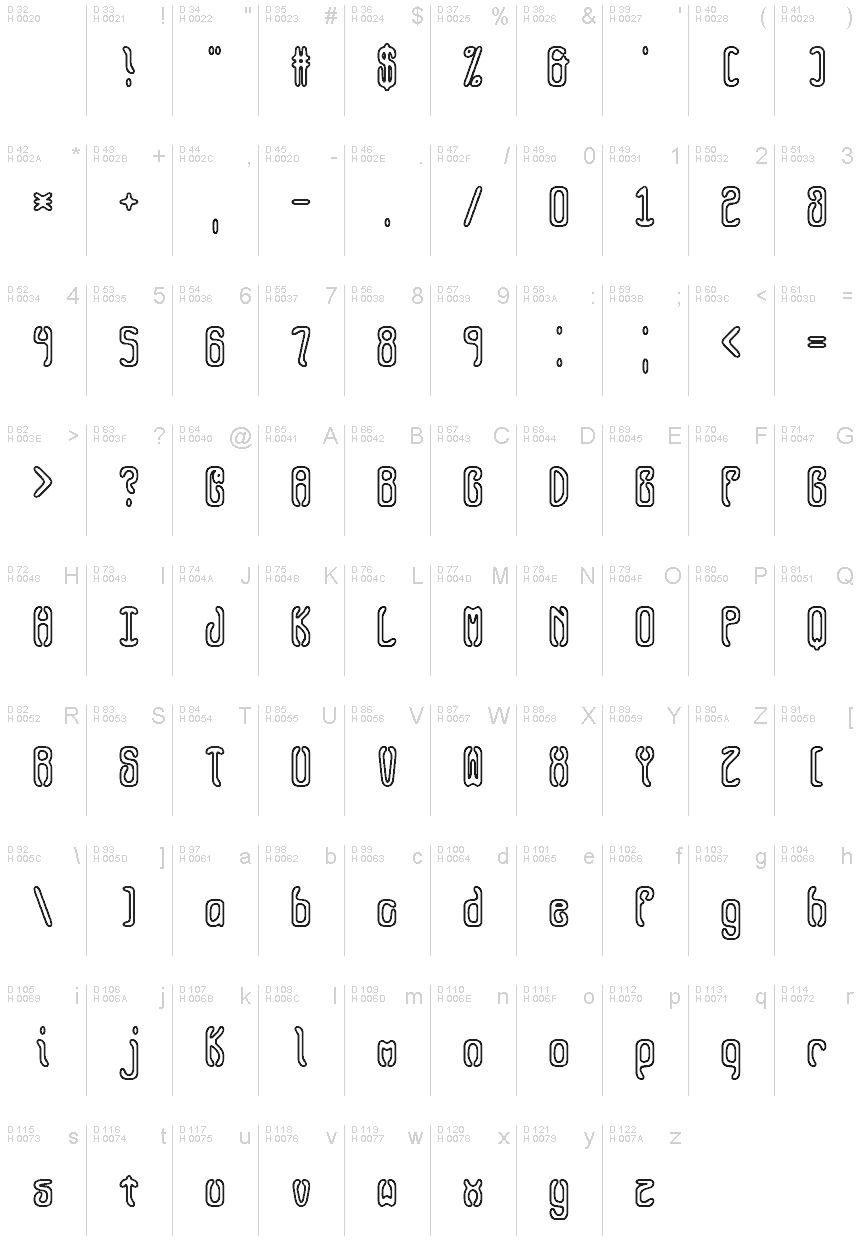
Queasy Outline BRK
Queasy Outline BRK emerges as a distinctive member of the Queasy font family, designed by ÆNIGMA FONTS. This display typeface boasts an outlined style that exudes a semi-light weight and an extra-condensed width, creating a sleek yet approachable visual appeal. Its crisp contours and open forms make it instantly recognizable, ensuring that any text stands out with clarity and style.
The aesthetic allure of Queasy Outline BRK lies in its balanced combination of modernity and whimsy. Each character is crafted with precision, allowing for excellent legibility while also injecting personality into the typography. The outlined nature provides a contemporary twist, making it perfect for creative projects seeking a font with character without overwhelming the design.
Ideal for headlines, posters, branding, or any project that demands attention without sacrificing elegance, Queasy Outline BRK adapts effortlessly to various contexts while maintaining its unique charm. Whether you're looking to captivate an audience or add a touch of sophistication to your visuals, this font offers versatility and distinctiveness in equal measure.
The aesthetic allure of Queasy Outline BRK lies in its balanced combination of modernity and whimsy. Each character is crafted with precision, allowing for excellent legibility while also injecting personality into the typography. The outlined nature provides a contemporary twist, making it perfect for creative projects seeking a font with character without overwhelming the design.
Ideal for headlines, posters, branding, or any project that demands attention without sacrificing elegance, Queasy Outline BRK adapts effortlessly to various contexts while maintaining its unique charm. Whether you're looking to captivate an audience or add a touch of sophistication to your visuals, this font offers versatility and distinctiveness in equal measure.